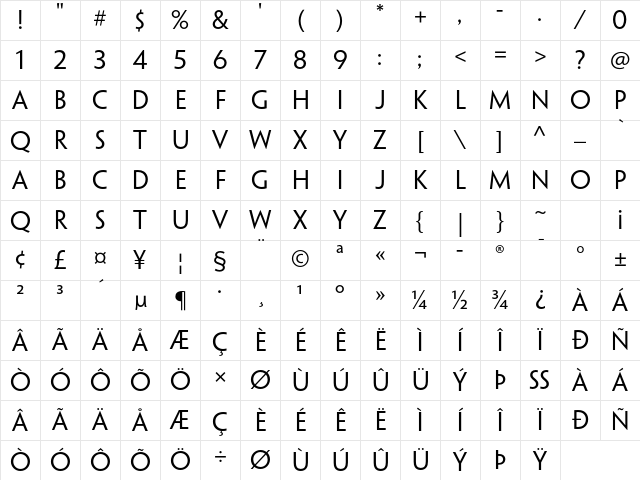
Penumbra Sans Std Regular
Designer: Lance Hidy
Design Context for Penumbra Sans Std
Penumbra Sans Std is a composed and adaptable typeface that performs quietly and consistently across a wide range of design contexts.